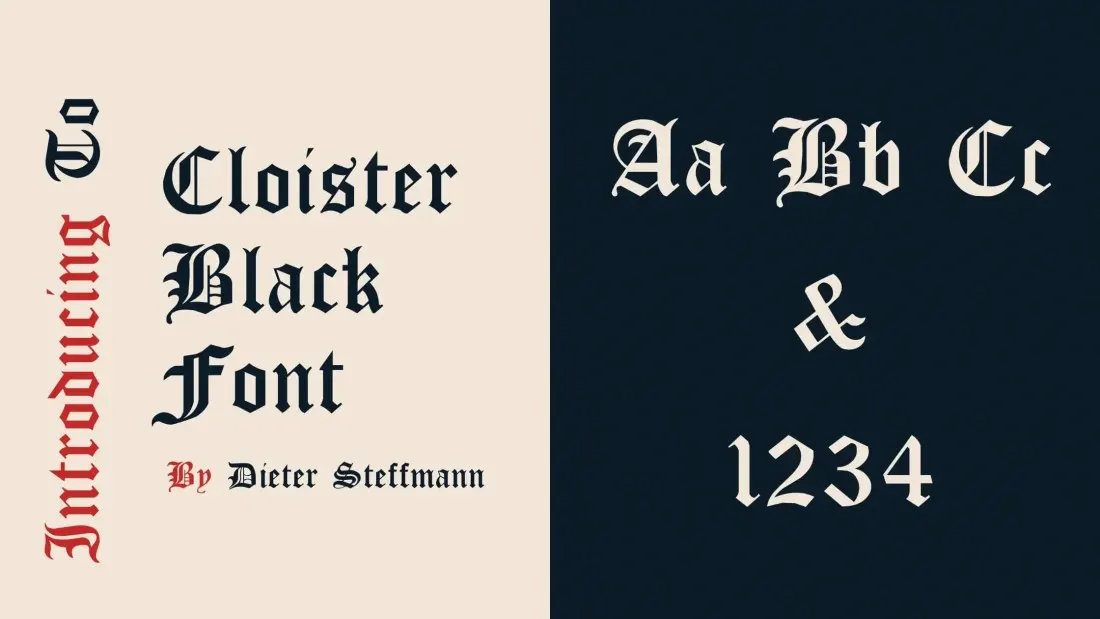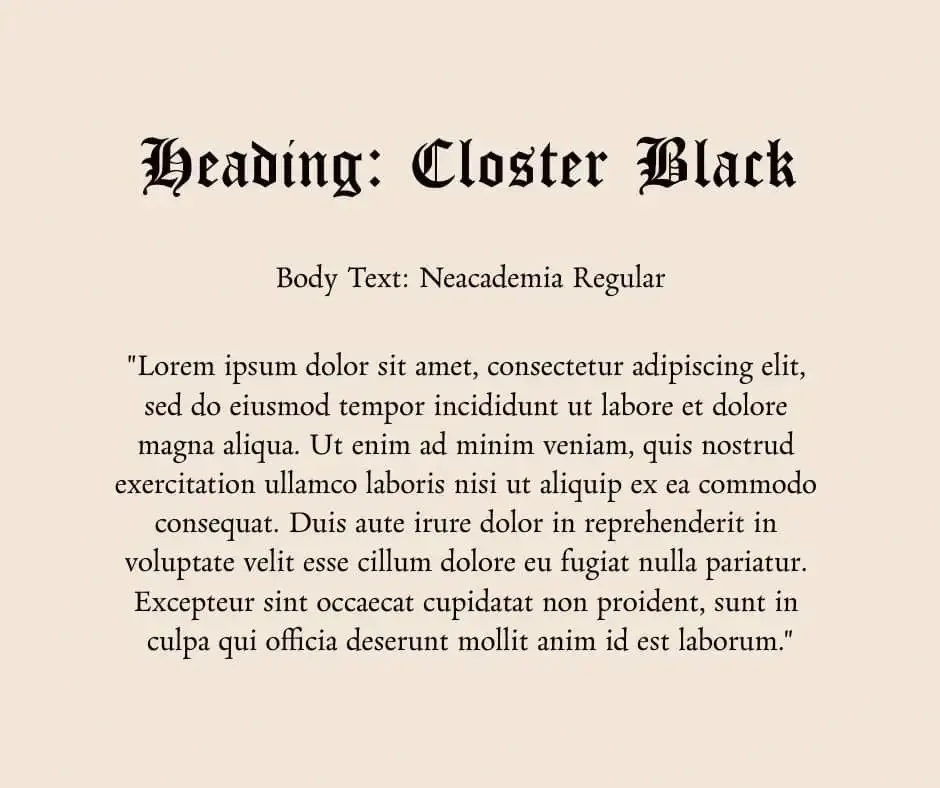
About Cloister Black Font
The Blackletter font family is a collection of fonts influenced by the dark, saturated calligraphic letters of the Middle Ages. Today we are going to introduce a nice free blackletter font. Presenting Cloister Black Font. Free Download Cloister Black font from the download section below.
Cloister Black Typeface is a high-quality Middle Ages Blackletter font developed by Dieter Steffmann that is free to download for personal use only. All capital and lowercase letters, as well as a few special characters, are available in the free version. There are many versions of this font and all are premiums. Only dieter steffmann’s designed font is free.
Cloister Black’s uppercase and lowercase letters are characterized by powerful strokes and complex serif swirls.
Usage of Cloister Black Font
Blackletter was featured alongside roman and italic typefaces in book printing for hundreds of years. So, you can use Cloister Black font in book printing. You can also use Cloister Black to design logos, book covers, posters, website headers, t-shirt designs, and much more.
Cloister Black typeface has older letterforms that are highly stylized and dense but still legible. However, It can typically use as flashy display fonts rather than small text or long body copy. That means if you need a font for the heading or title, download this free font.
Fonts Similar To Cloister Black
Cloister Black Font Combination
Cloister Black + Neacademia Regular
It isn’t easy to find a font combination of Black Letter Font. These fonts are usually used for heading and titles. A high legible font is needed for body text/small text with Black letter font.
Neacademia Regular can be a perfect pair with such blackletter font as Cloister Black.
Is Cloister Black A Good Font?
Yes, Cloister black is a contemporary, unique, and elegant style that is suitable for print and on-screen usage.
What Type Of Font Is Cloister Black?
The Blackletter font family is a collection of fonts influenced by the dark, saturated calligraphic letters of the Middle Ages.